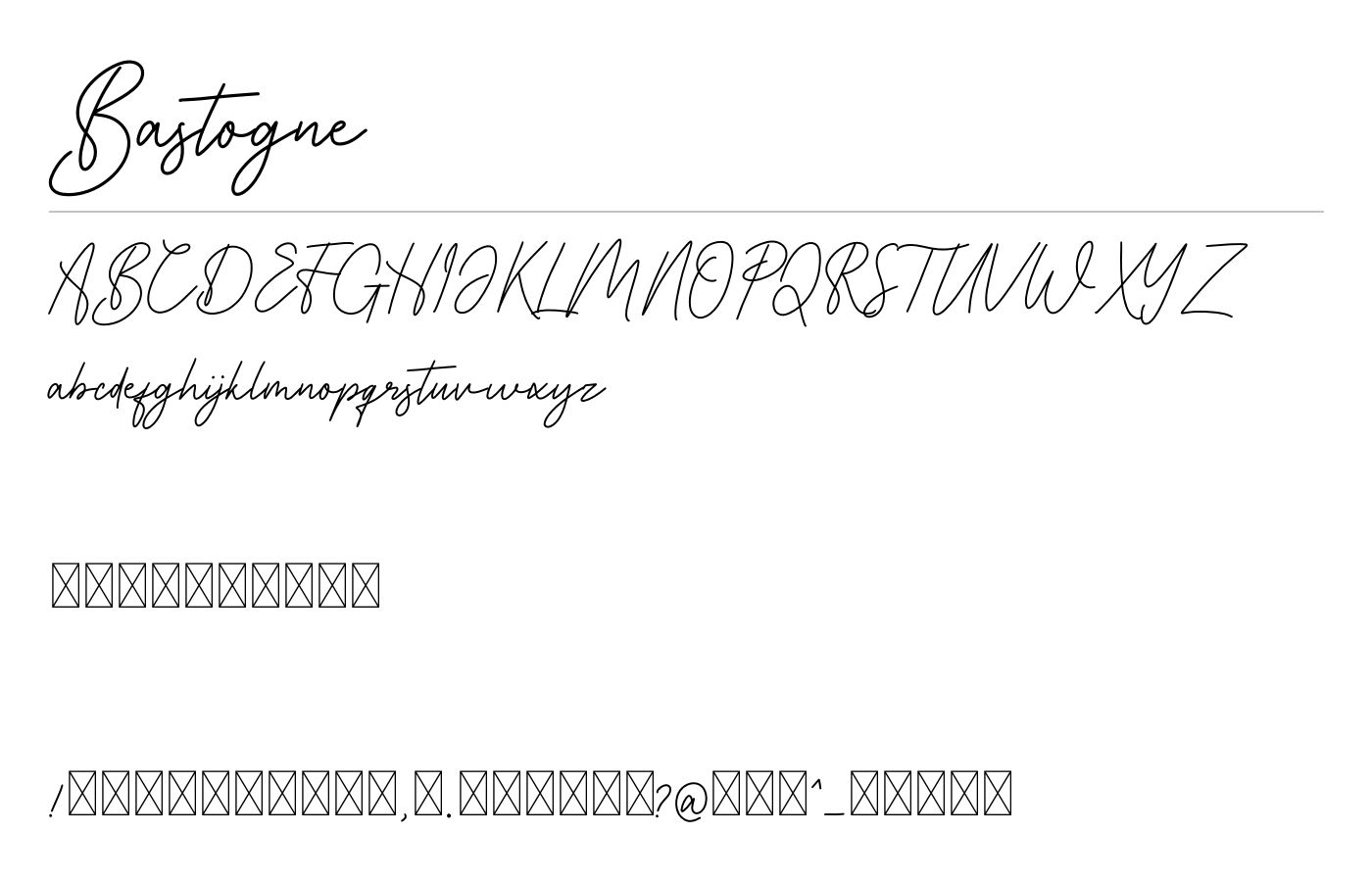
Bastogne is a delicate, handwritten script font characterized by its thin, flowing strokes and elegant, cursive style. Its light weight and tall, narrow letterforms give it a graceful, personal touch, making it ideal for invitations, branding, and designs that seek a refined yet approachable feel. This font works best in projects that aim to convey warmth and sophistication while maintaining a modern, artistic vibe.
Bastogne Font